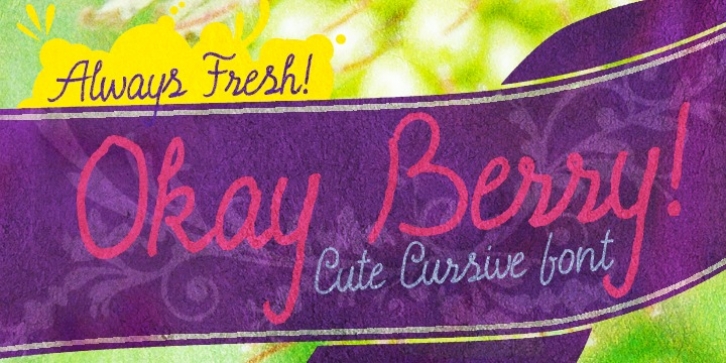
Okay Berry is a connected script with naturally beautiful handwritten style. Okay Berry is extended, containing West European diacritics & ligatures, making it suitable for multilingual environments & publications.